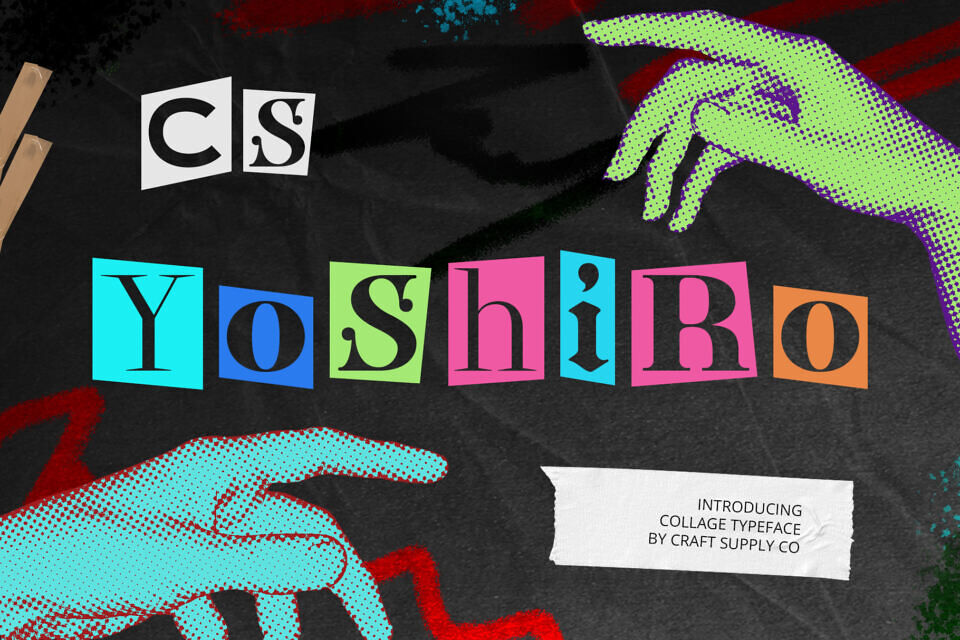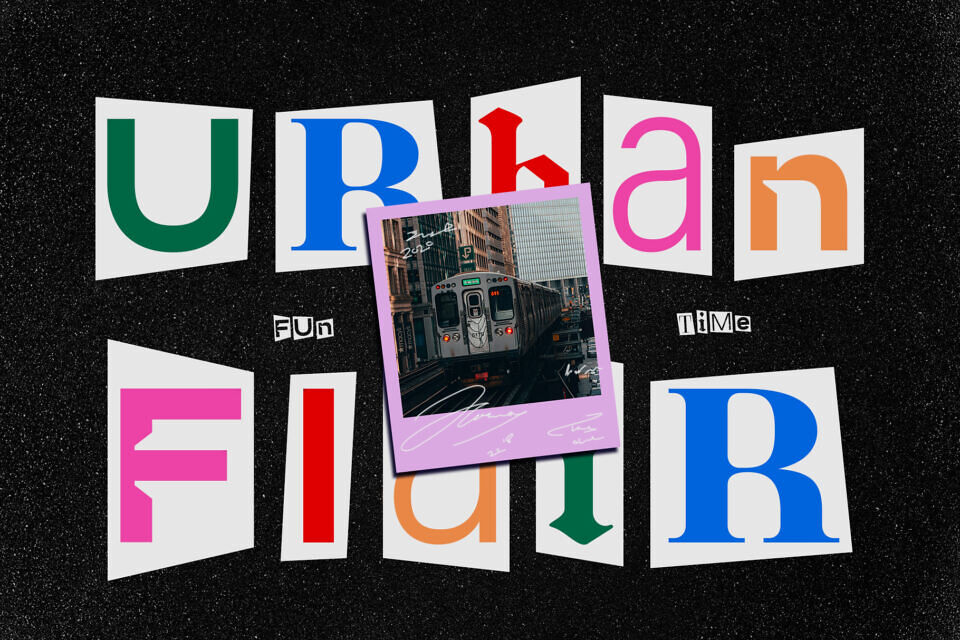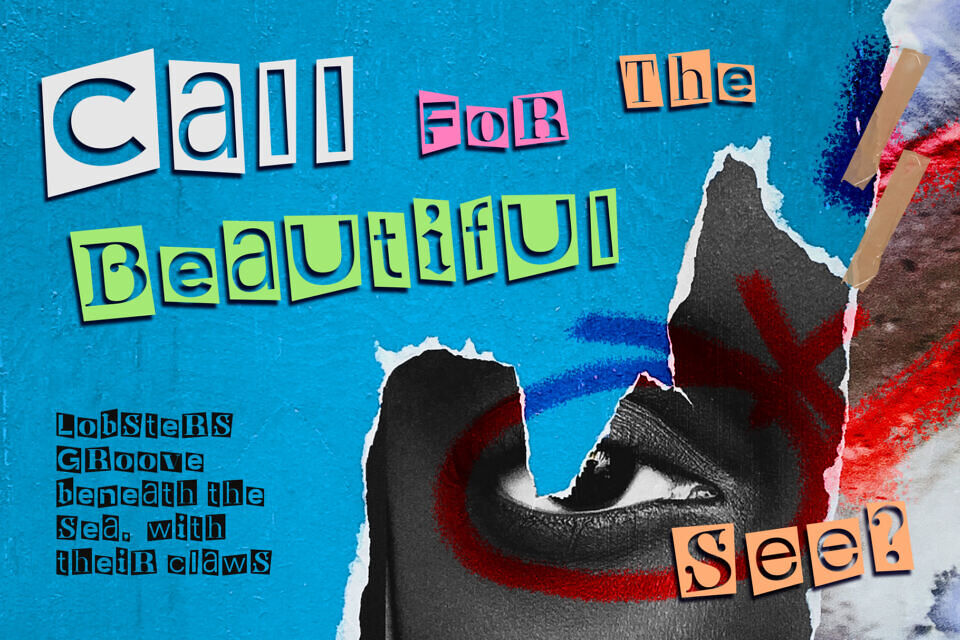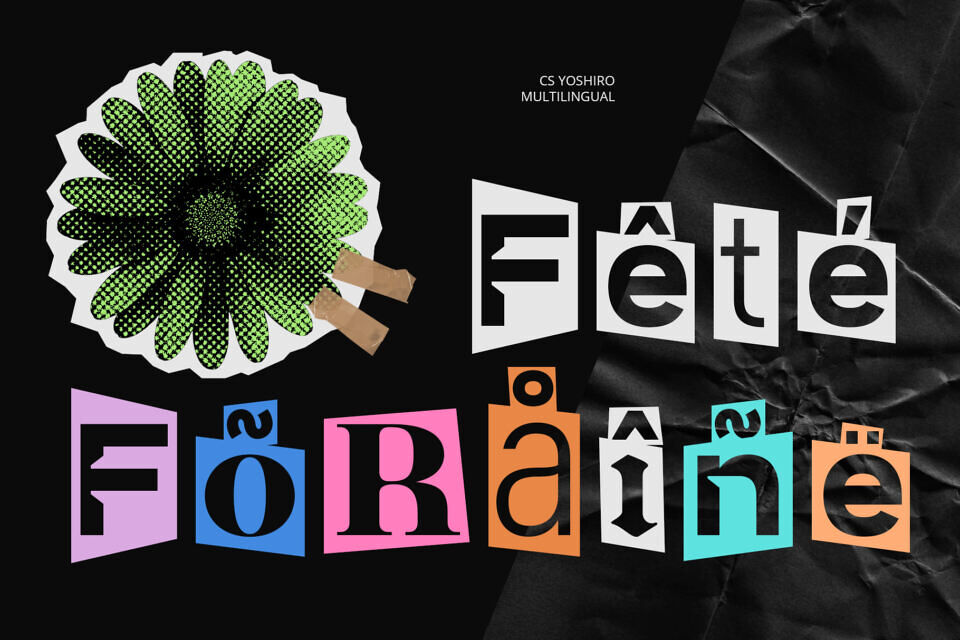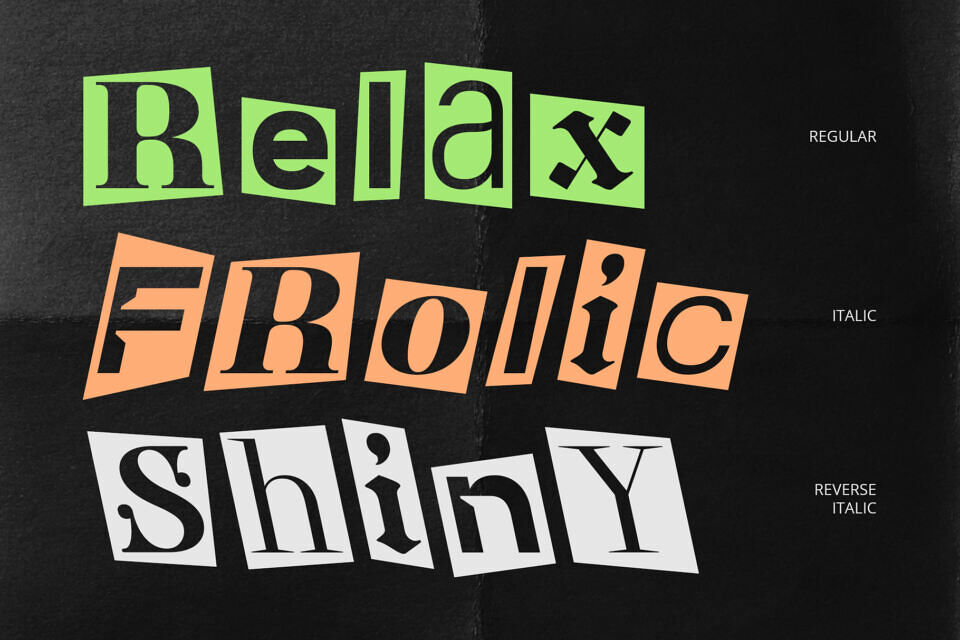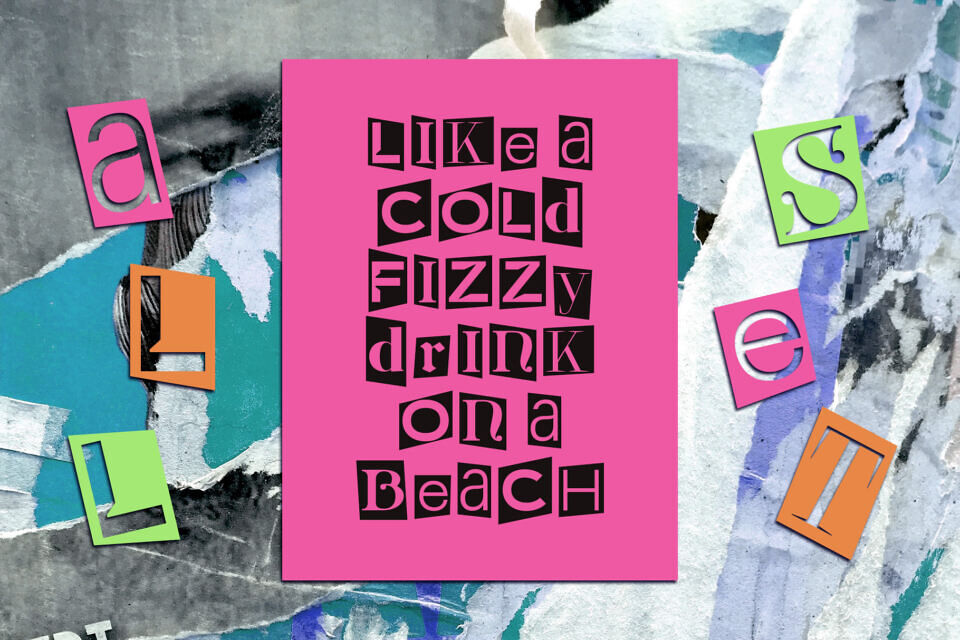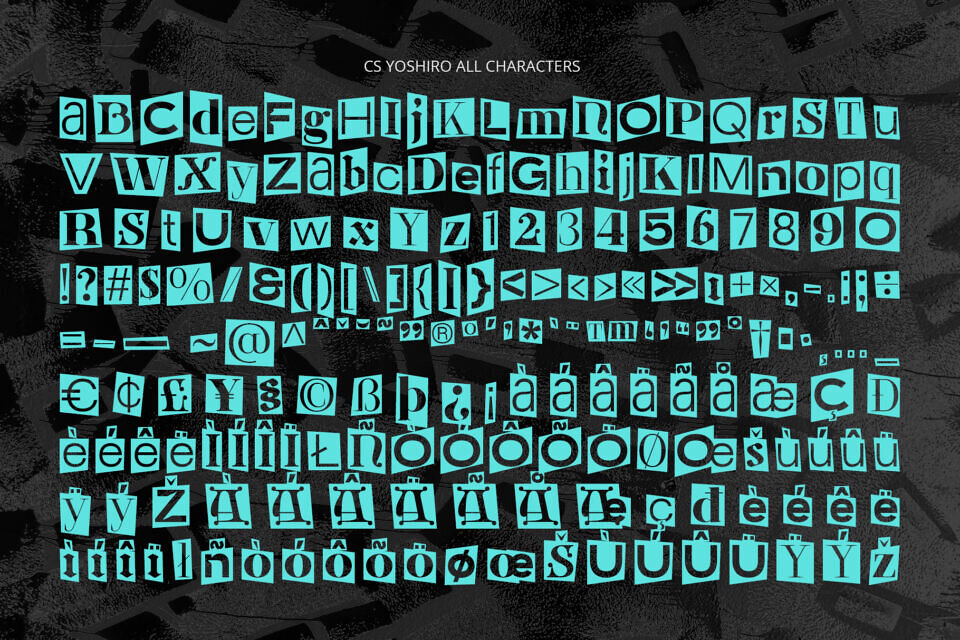
CS Yoshiro is a bold display font that captures the raw, unpredictable charm of collage and ransom note styles. Each letter looks like it was cut from different sources—varying in shape, size, and tone—creating a spontaneous, layered look that instantly grabs attention. Its handcrafted appearance celebrates imperfection and boldness.
With irregular outlines, contrasting elements, and an unpolished finish, CS Yoshiro turns traditional typography on its head. It brings a visual rhythm that feels dynamic and alive, making every composition stand out. This chaotic harmony adds personality to your text, whether used in large headlines or standalone typographic art.
Perfect for creative campaigns, event posters, independent publications, and underground branding, CS Yoshiro is made for designers who think differently. It thrives in unconventional contexts—where breaking rules is part of the message. From zines and band artwork to streetwear graphics, this font speaks to those who want to be seen and remembered.